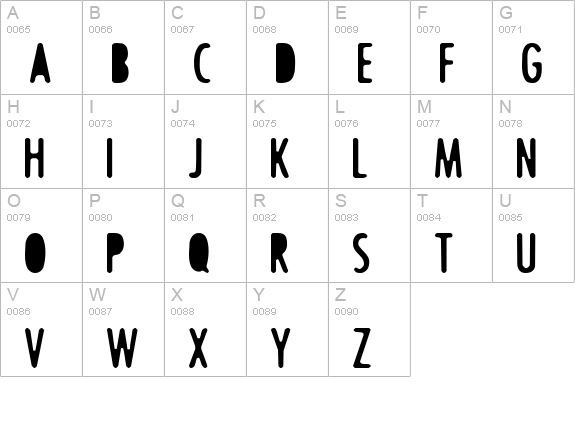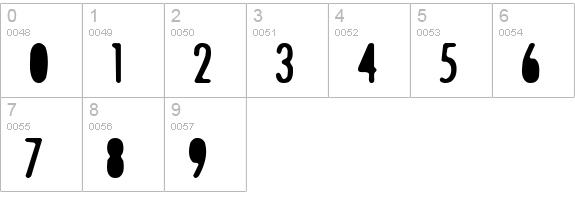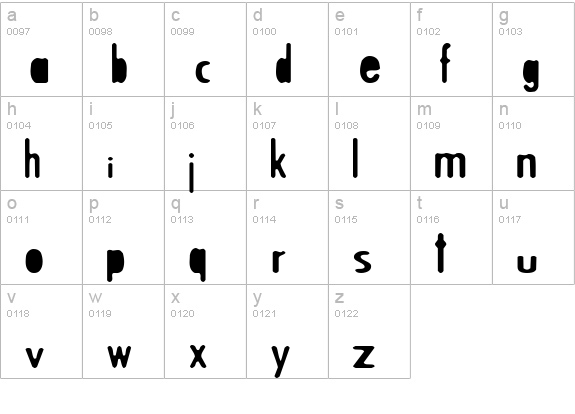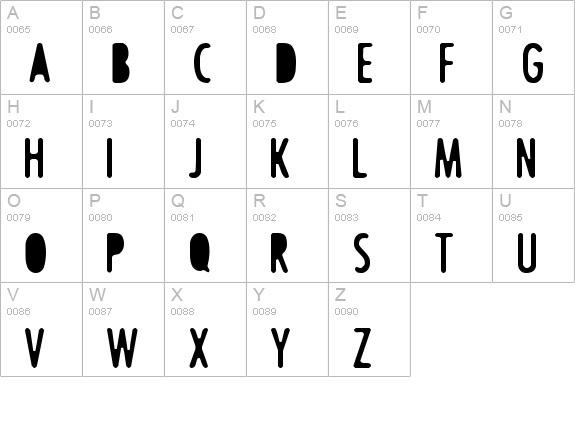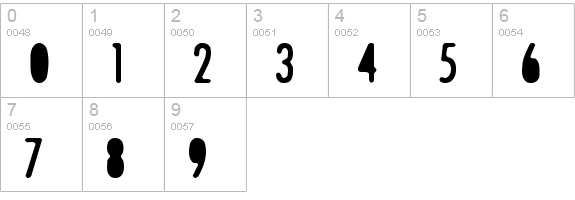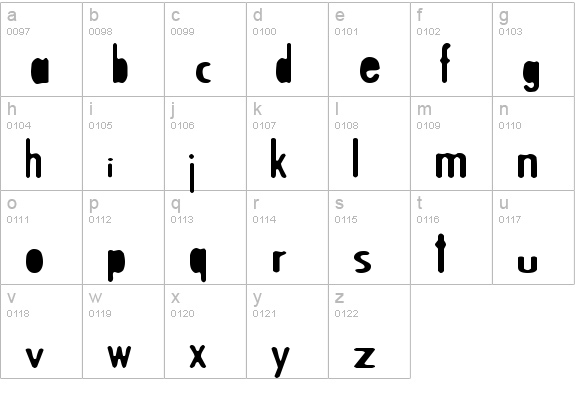
Introducing Trigger font, a visually captivating typeface that is sure to make a bold statement in any design project. With its clean lines and modern aesthetic, Trigger font effortlessly combines a sense of sophistication with contemporary flair. What sets Trigger font apart is not only its stunning visual appeal, but also the fact that it is absolutely free. Yes, you read that right - Trigger font is freely available to download at FontsMarket.com. This means that you can add this remarkable typeface to your collection without any cost, making it an ideal choice for budget-conscious designers and creatives. Whether you're working on a logo, website, branding materials, or any other design project, Trigger font will elevate your work to new heights. Its versatility allows it to be used in a variety of contexts, from elegant and refined to edgy and modern. The sharp edges and sleek curves of each letterform create a sense of energy and dynamism, giving your designs a distinctive and memorable look. With Trigger font, you have the freedom to explore endless possibilities and unleash your creativity. Its wide range of weights and styles provide ample options for customization, allowing you to find the perfect fit for your design needs. Whether you prefer a bold and impactful look or a more subtle and refined approach, Trigger font has got you covered. So why wait? Download Trigger font today at FontsMarket.com and experience the power of this exceptional typeface. Join the growing community of designers who have discovered the beauty and versatility of Trigger font, and take your designs to the next level. With its stunning visual appeal and the added bonus of being free, Trigger font is a must-have addition to any designer's toolkit.